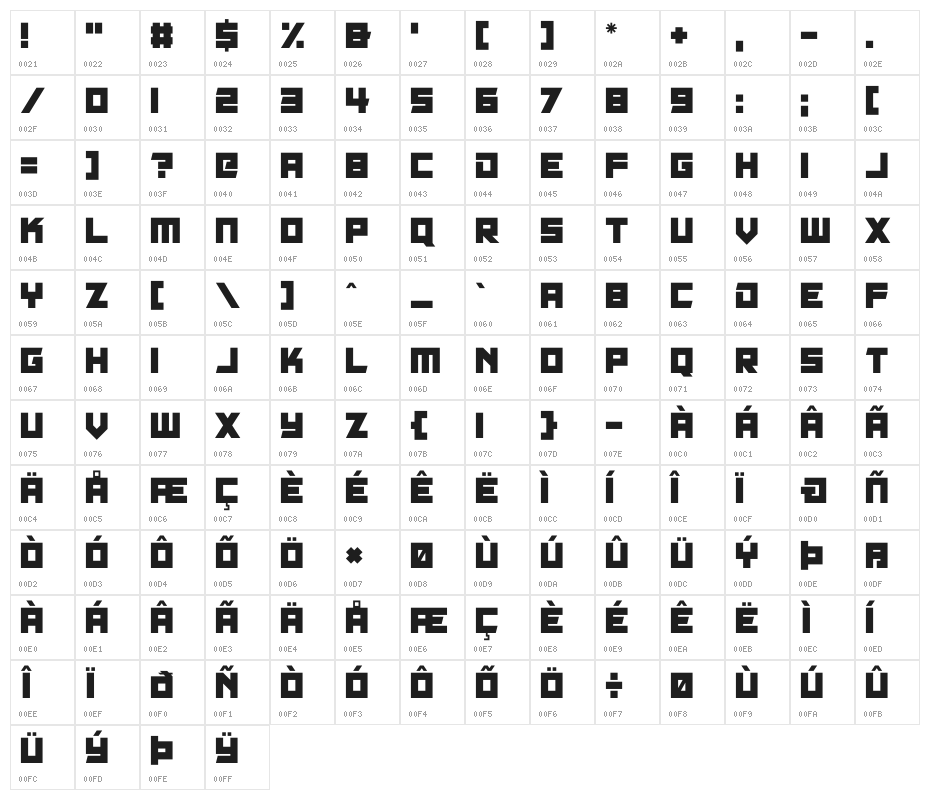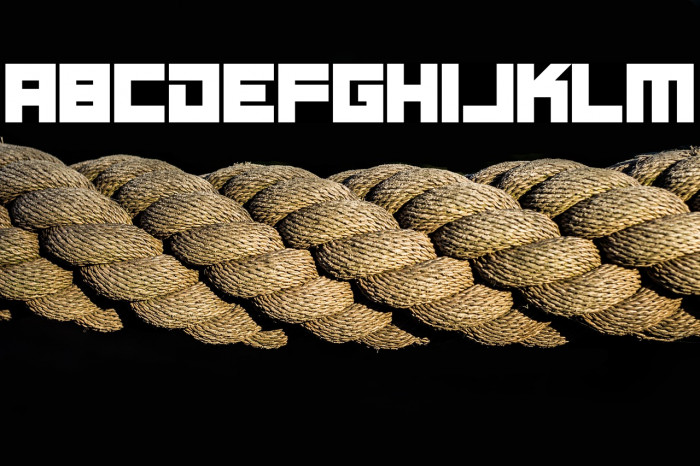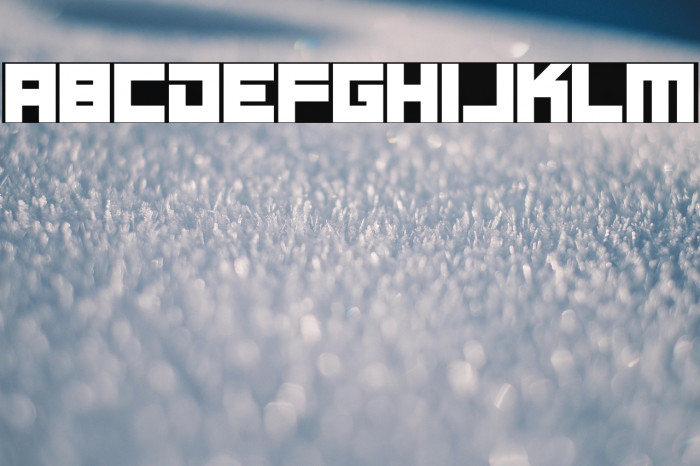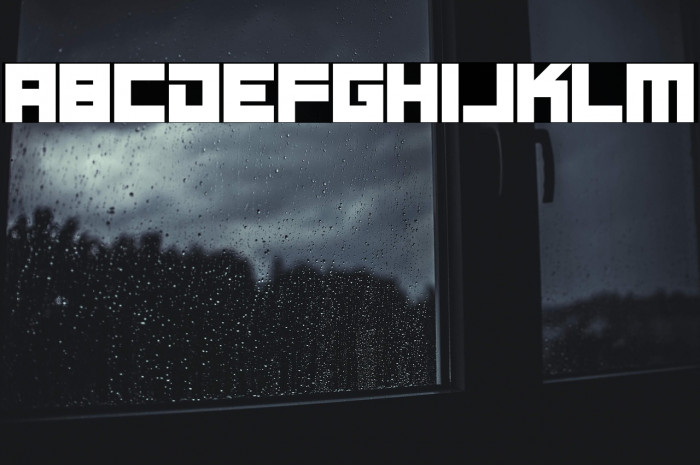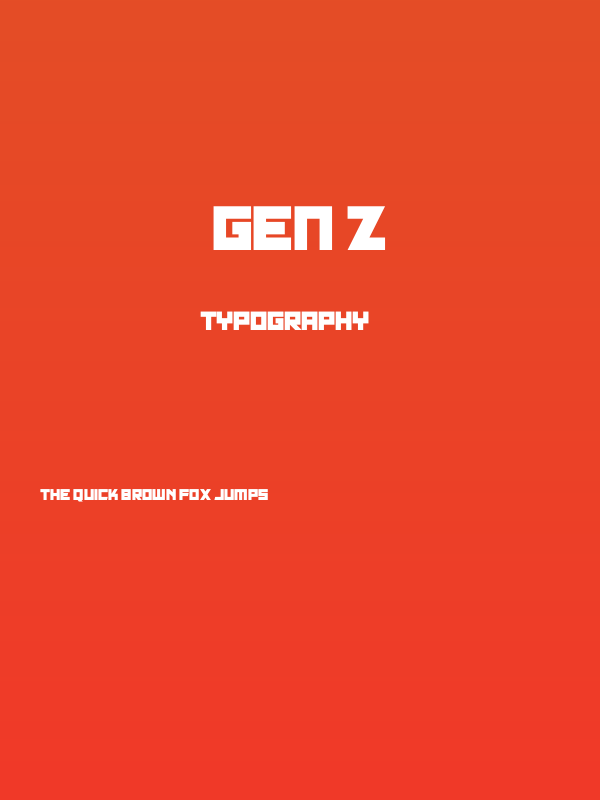
Gen Z Font
Gen Z Description
This font features a bold, geometric design with strong, angular lines and a futuristic aesthetic. The characters are uniformly wide, creating a blocky and robust appearance. The uppercase letters are particularly striking, with sharp edges and a consistent height that gives them a powerful presence. The numerals and special characters maintain this bold style, ensuring a cohesive look across all elements. The font's design is reminiscent of digital or sci-fi themes, making it ideal for projects that require a modern and edgy feel.
| Proposed Projects | Ideal for video game titles, tech company logos, sci-fi movie posters, and digital media branding. |